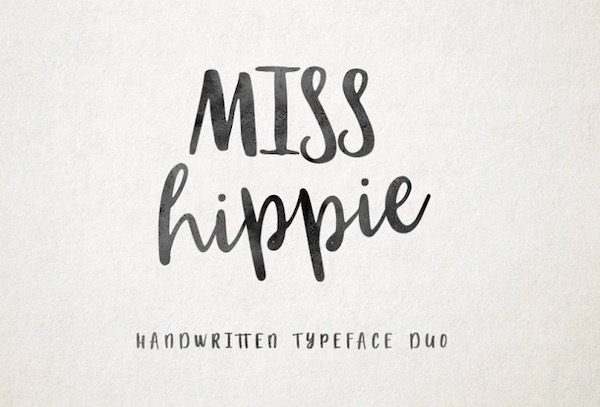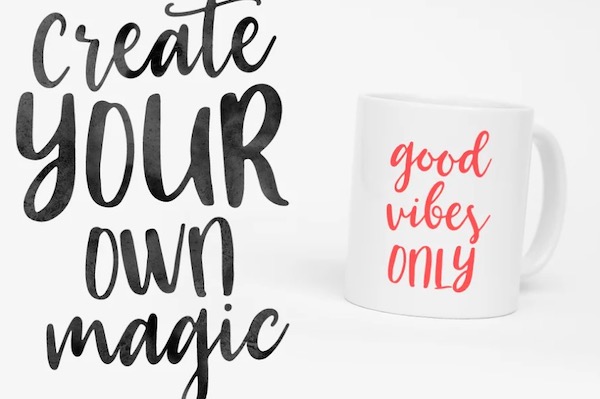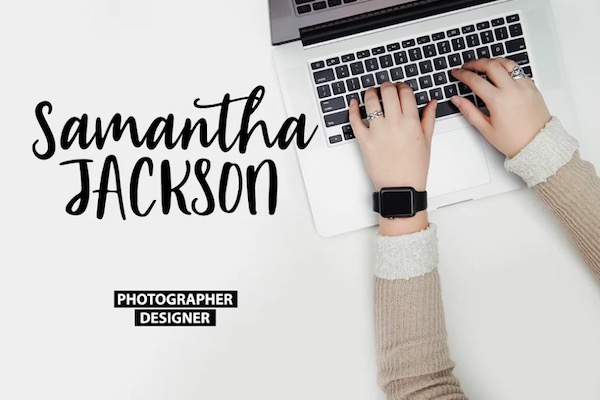
Miss Hippie is an amazing font DUO with many different fancy characters. You can make art designs from this font, and this work is very simple and easy.
Miss Hippie Script Font